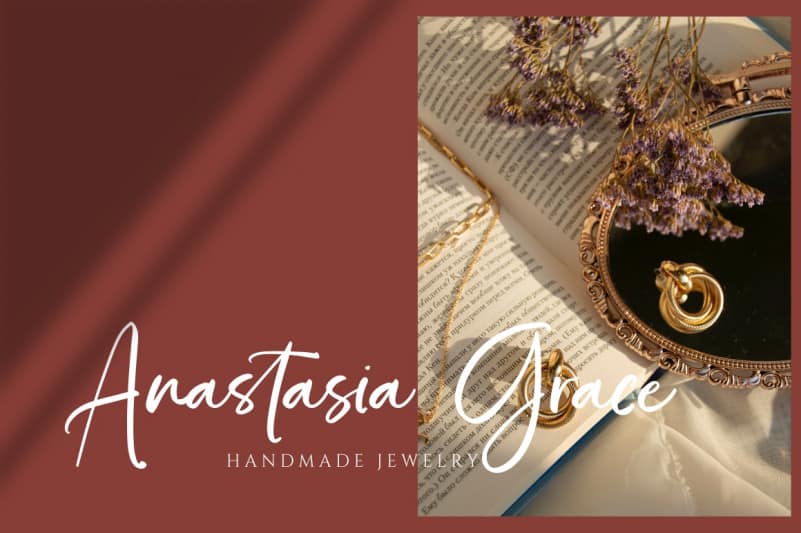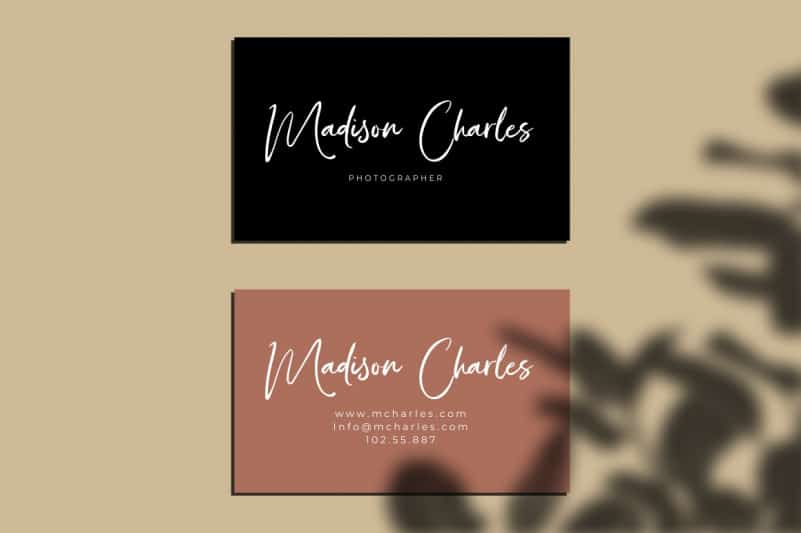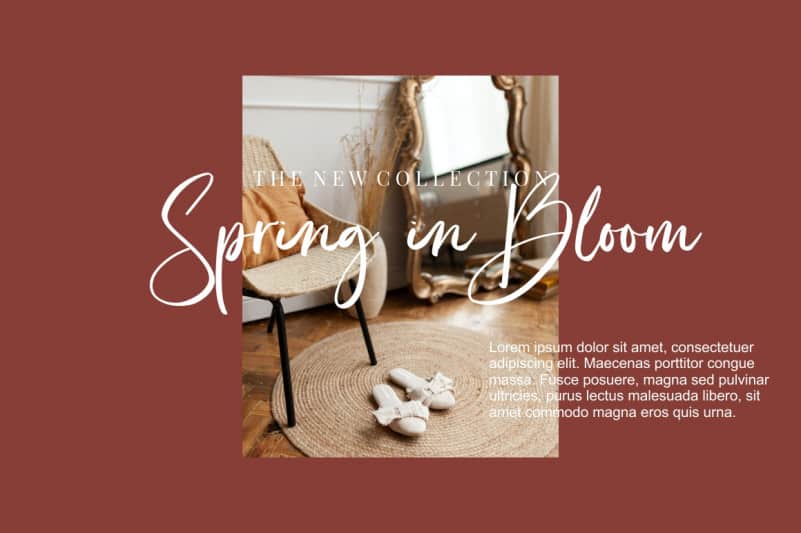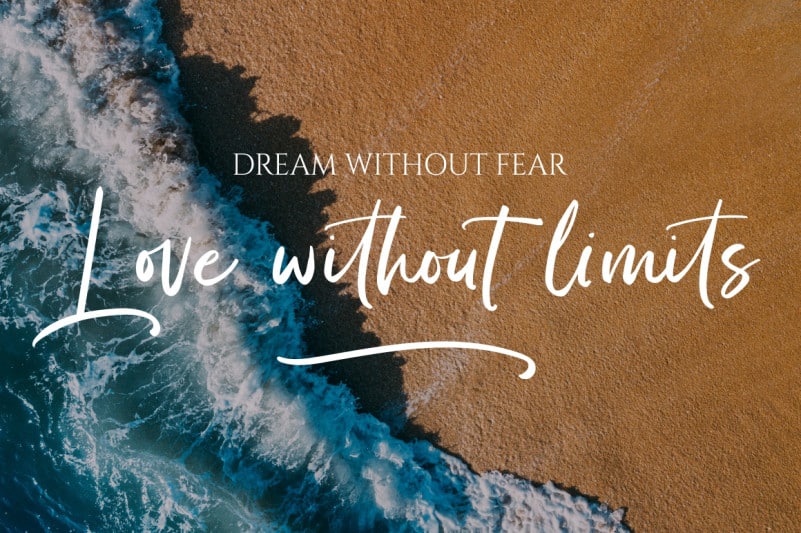
Bonjour Sidney Calligraphy Font. A stylish, modern and feminine font that will look awesome on logos, branding materials, wedding and event stationery, social media overlays, cards and so on.